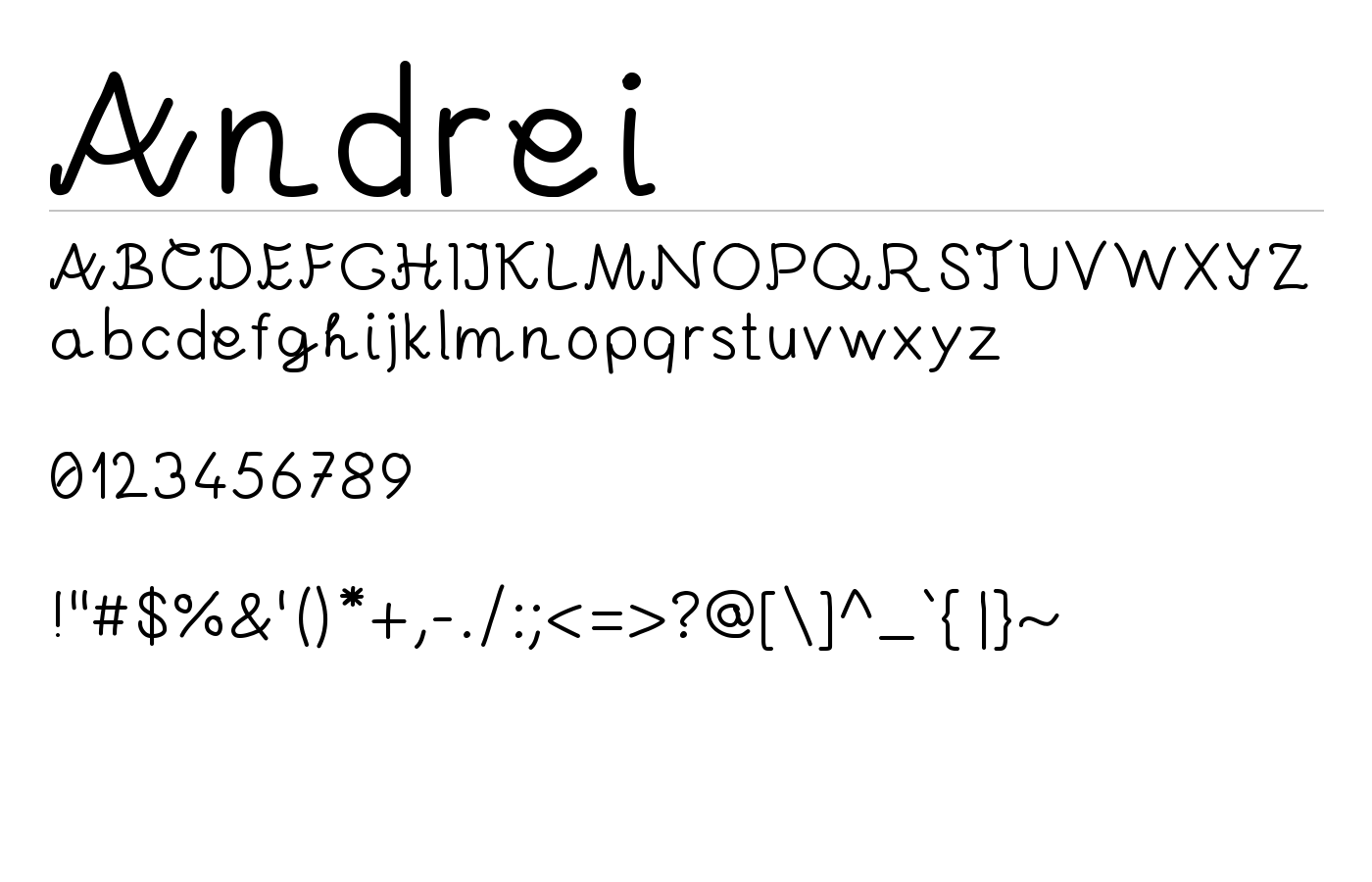
Andrei is a charming handwritten-style font with a light, airy feel that combines playful curves with neat, simple letterforms. Its slender strokes and unique character shapes give it a warm, approachable personality, making it ideal for creative projects, casual branding, or friendly editorial designs where a personal touch is desired. This font works beautifully for invitations, blogs, and artistic packaging, adding a touch of softness and individuality.
Andrei Font
About Andrei Font
| Font family | Andrei Font |
| Designer | Andrei Olaru |